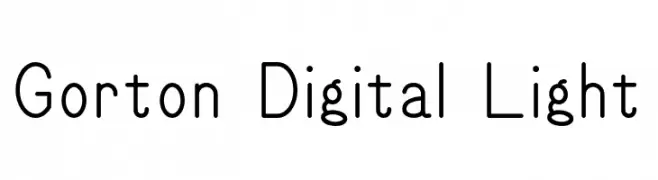
( A revival of a 20th century interwar typeface. In the early- to mid-20th century, the George Gorton Machine Company made engraving machines (among other machines). )
A clean, modern sans-serif font with a light weight and balanced spacing.